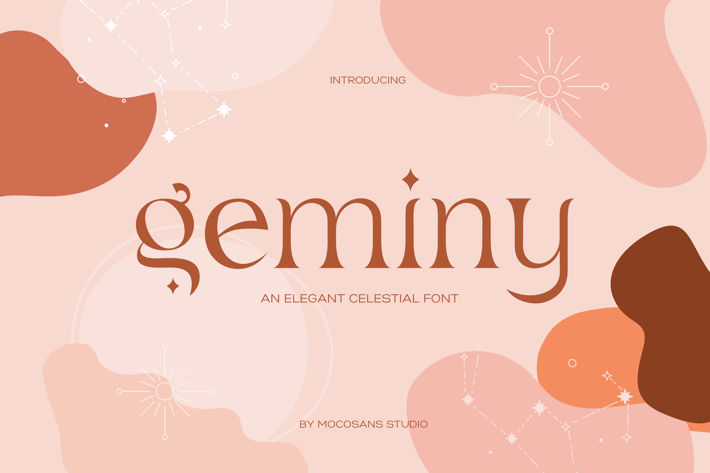
Geminy - Retro Elegant Font
GEMINI FONT
Modern and elegant font with celestial style touch!
Gemini font is perfect for:
logos, branding, craft element, business cards, greeting cards, thank you cards, stickers, magazines, social media, wedding invitations, digital and prints planner, and more!